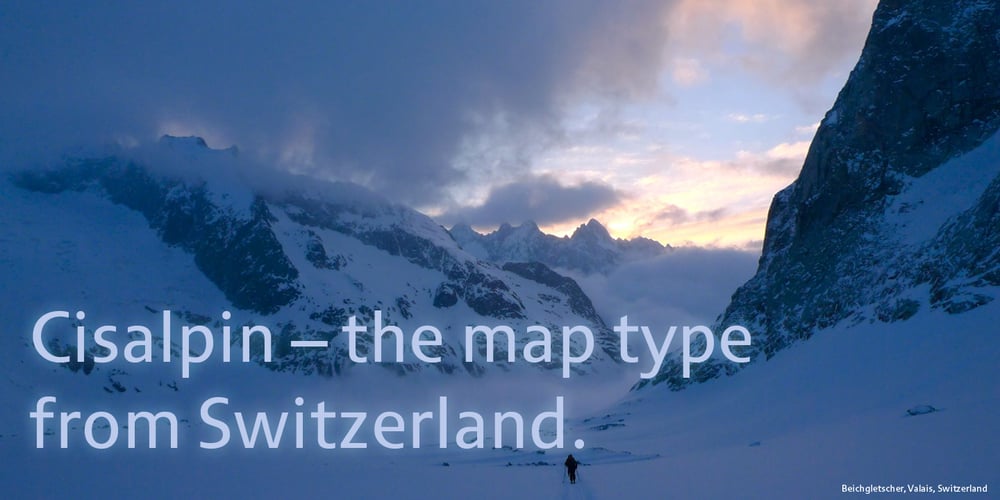
Cisalpin
Cisalpin font
Cisalpin Font Family was designed by Felix Arnold and published by Linotype. Cisalpin contains 4 styles and family package options. The ideal typeface for cartographyThe Swiss designer/typographer Felix Arnold designed Cisalpin during the late 1990s, after he had challenged himself to create a contemporary typeface that could be used for cartographic uses. Arnold came to the subject of cartographic typefaces after analyzing many maps and atlases, and discovering that there was no standard typeface for these types of documents. Like any good cartographic type, Cisalpin is very legible at small sizes. While he was drawing this typeface on his computer, Arnold used a reduction glass to refine his design, making it work in these situations. Cisalpin is a linear sans serif face, with slight resemblance to renaissance serif types. The various weights are all clearly differentiated from one another. And because space is often a premium on maps, Cisalpin runs narrow. Words close in around themselves to help them become more identifiable. The letterforms in Cisalpin are durable, and can maintain their readability when placed over complex backgrounds. They have open interior forms, flattened curves, tall x-heights, and a capital height that almost reaches the tops of the ascenders. Cisalpin also has pronounced Italics, with a very clear angle of inclination. Each letterform in the family has been optimized so that they cannot be easily mistaken for another. This again helps minimize the misunderstandings that often occur because of illegibility. Although Cisalpin was developed for use in cartography, it may be used for countless other purposes; any font that can work well in small sizes on a map could be used almost anywhere else!